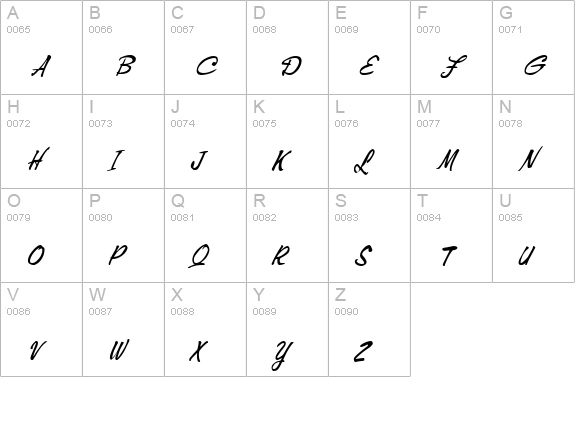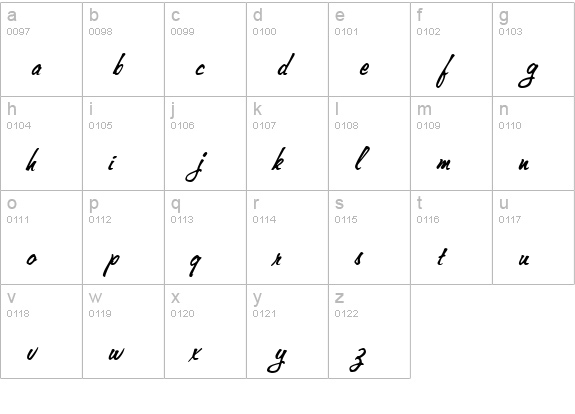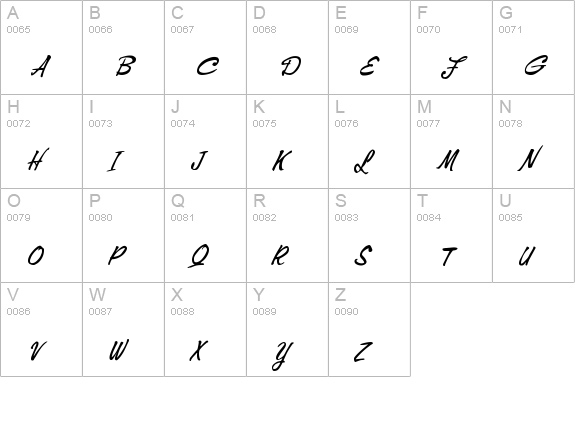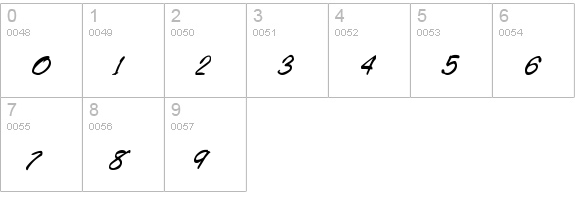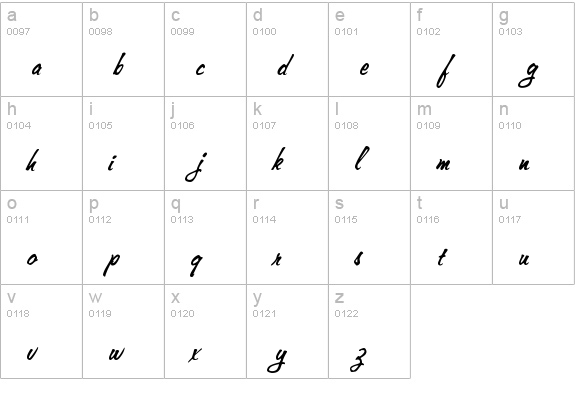
GenovevaItalic Font Details
GenovevaItalic is a stunning and elegant font that exudes sophistication and style. With its graceful curves and unique design, this typeface is perfect for adding a touch of class to any project. The italicized letters give a sense of fluidity and movement, making GenovevaItalic a versatile choice for both formal and creative endeavors. What makes GenovevaItalic even more appealing is that it is completely free to download at FontsMarket.com. Whether you're working on a professional presentation, designing a wedding invitation, or simply looking to add a touch of flair to your personal projects, GenovevaItalic is the perfect font to elevate your work. Download this exquisite font today and unleash your creativity with ease and elegance.